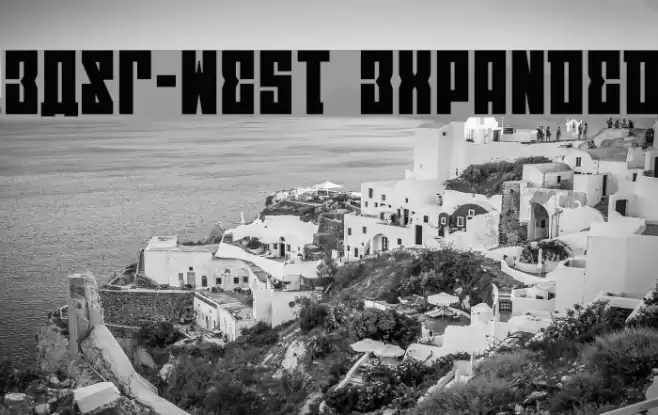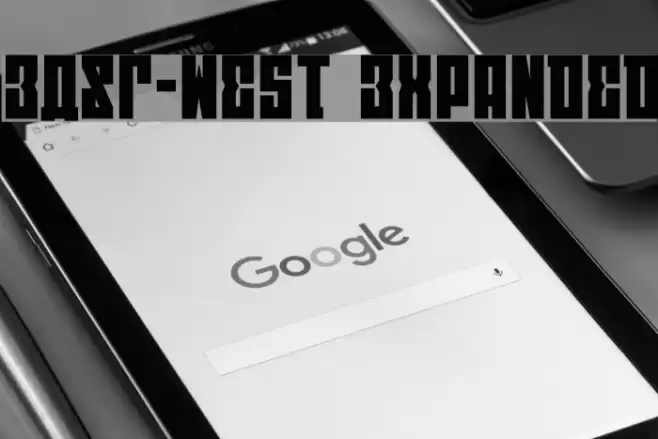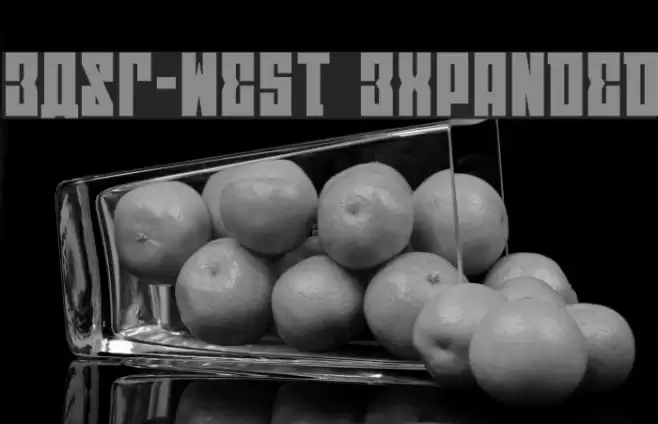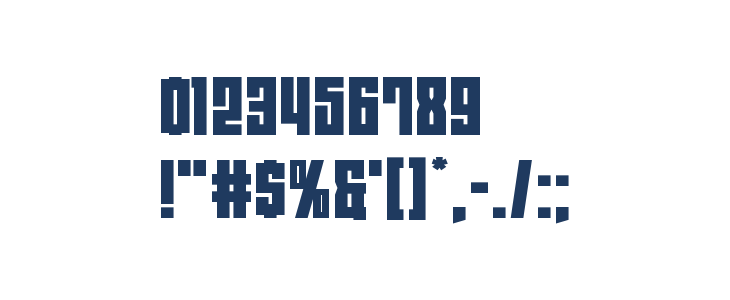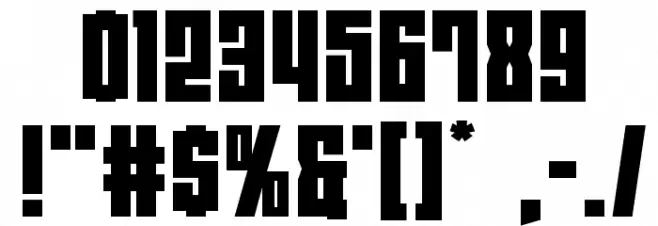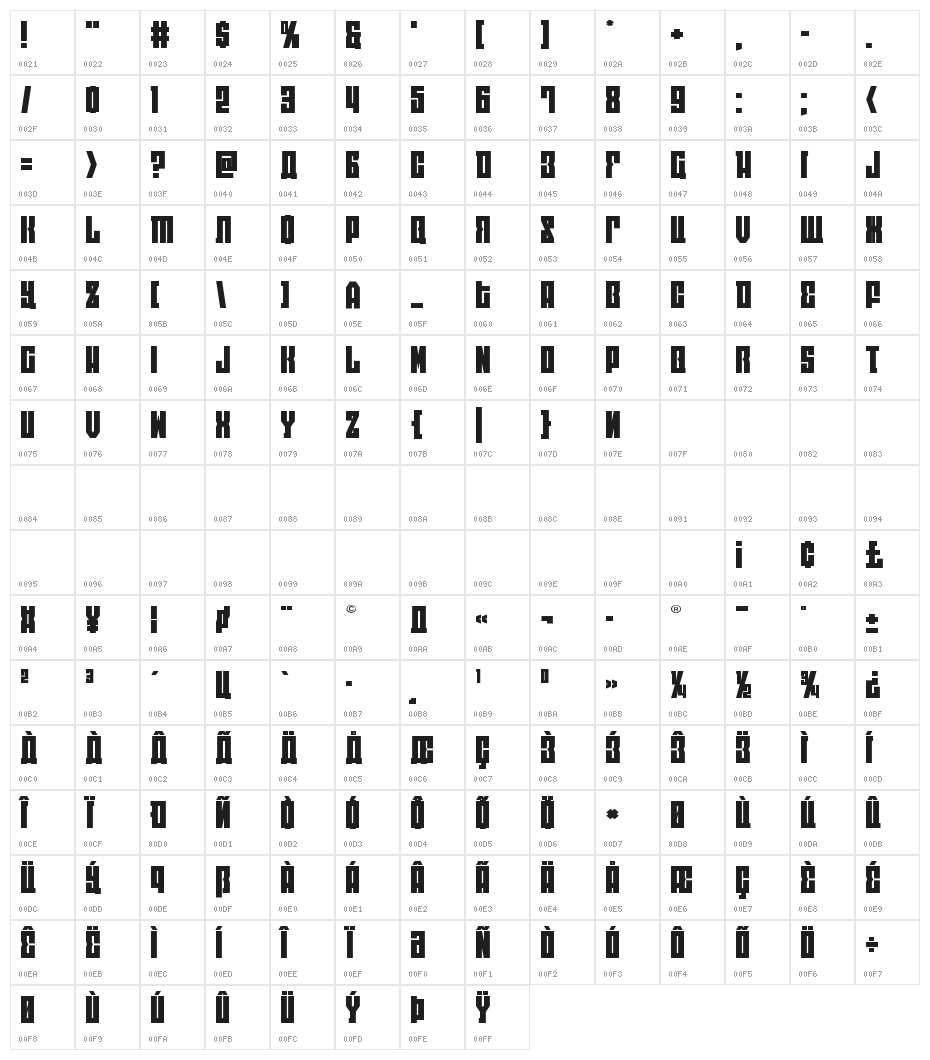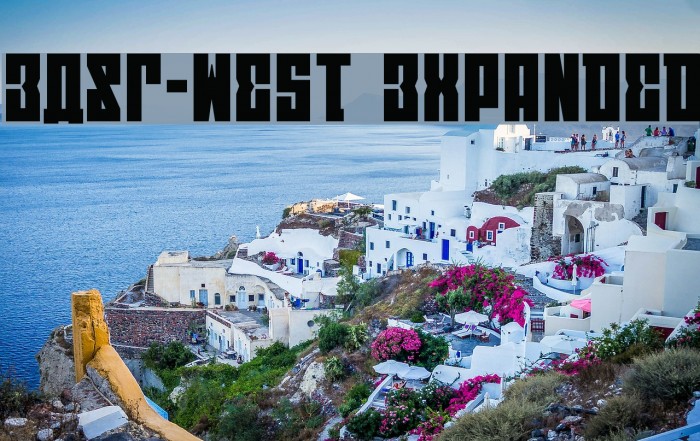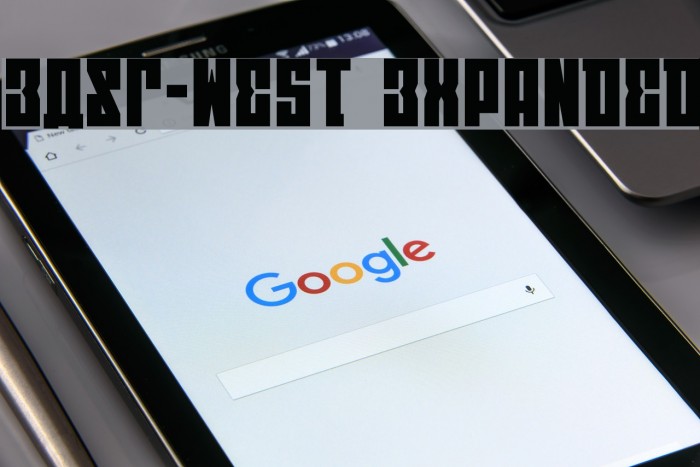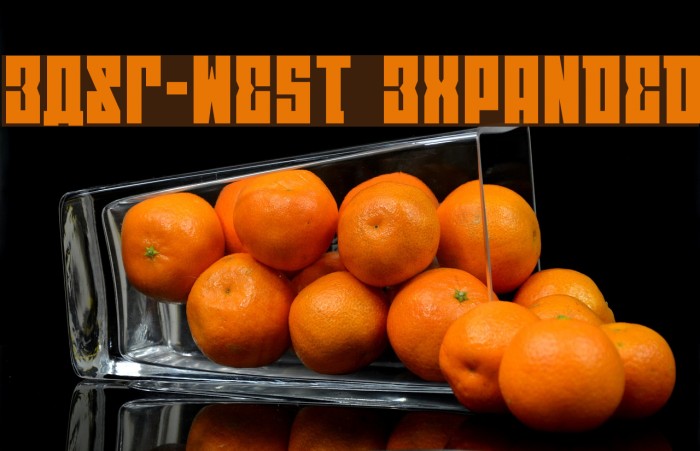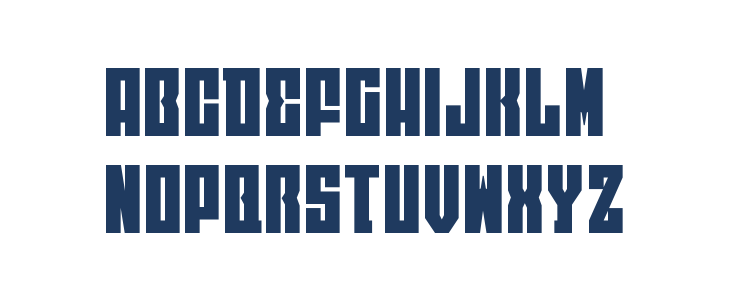
EAST-west Expanded Font
EAST-west Expanded Description
This font features a bold and striking design with a distinctly geometric and blocky appearance. The characters are uniformly wide, creating a sense of strength and stability. The uppercase letters are particularly prominent, with sharp angles and a consistent height, while the lowercase letters maintain the same boldness, ensuring readability. The numbers and special characters follow the same design principles, making them easily recognizable. The overall style is modern and impactful, suitable for making a statement in any design.
A bold, geometric font with a modern and impactful style from Uncategorized fonts.
- Proposed Projects: Ideal for posters, headlines, logos, and branding materials that require a strong visual impact.